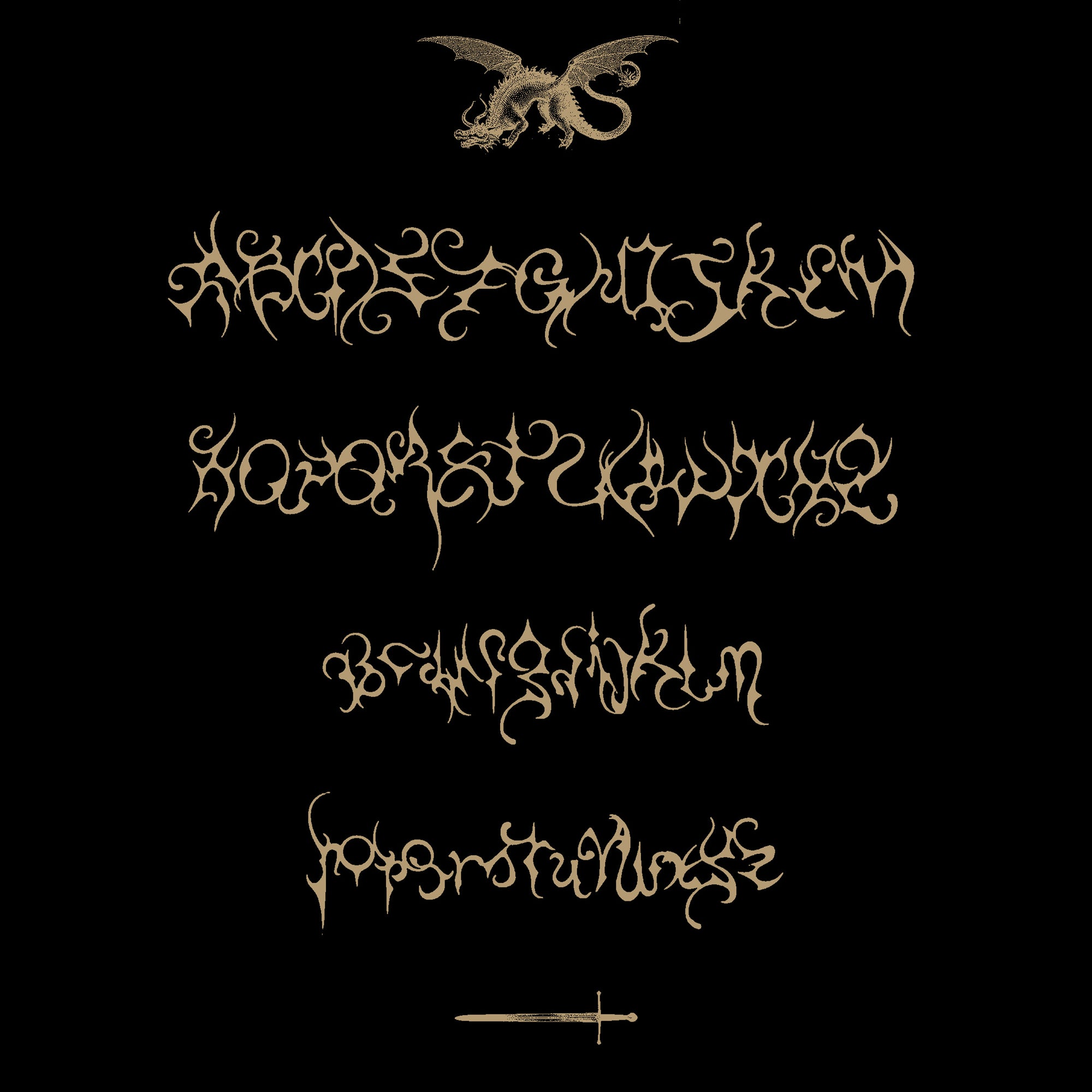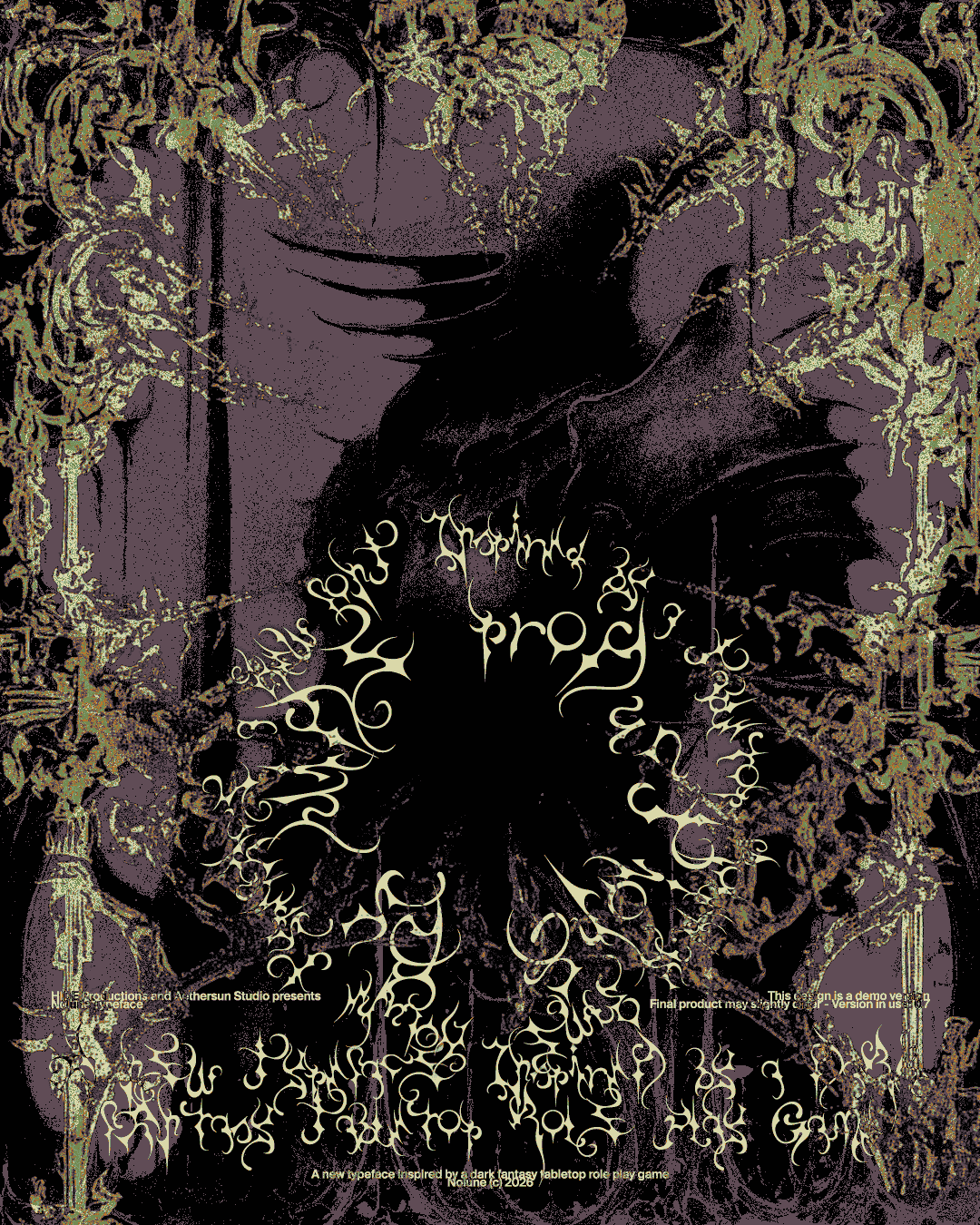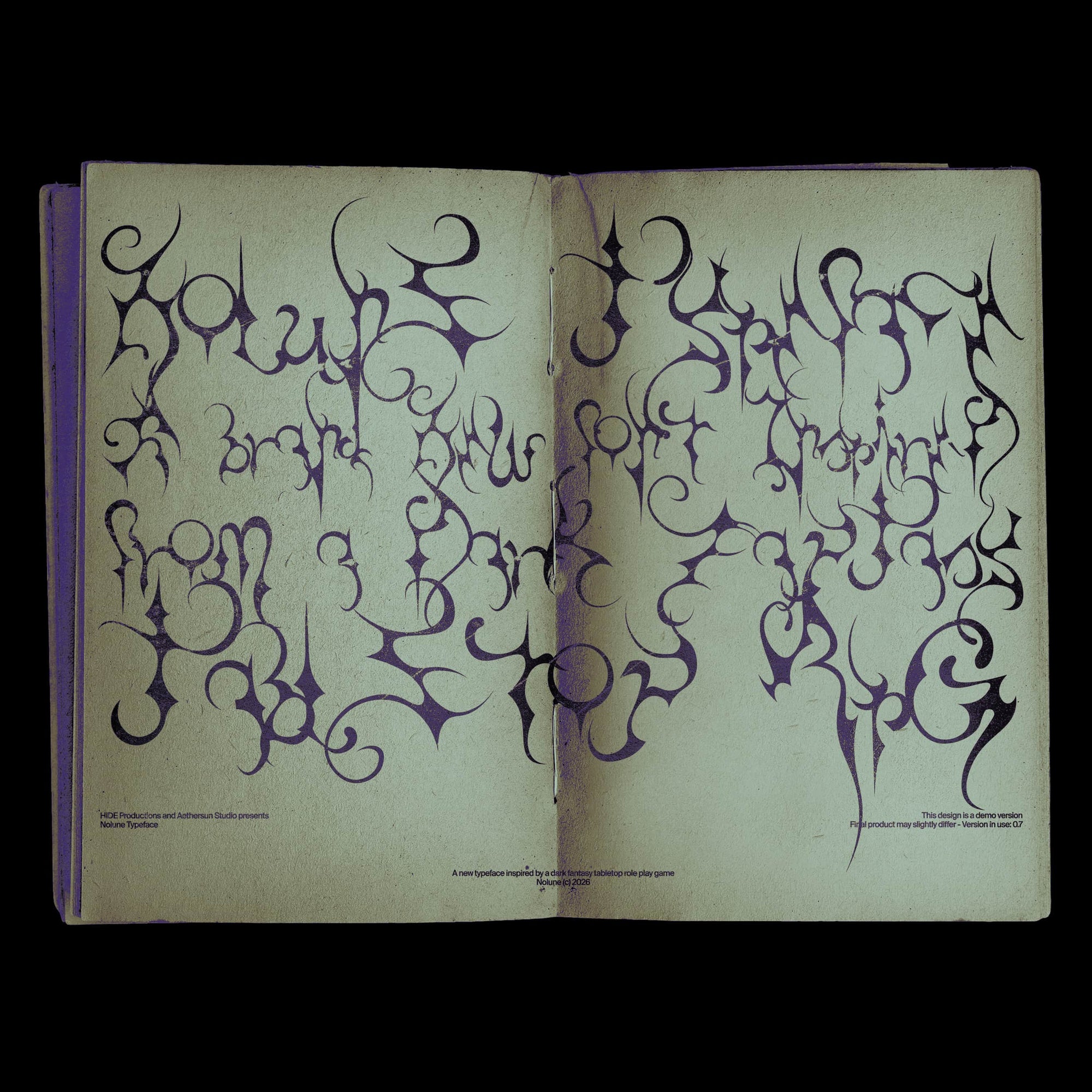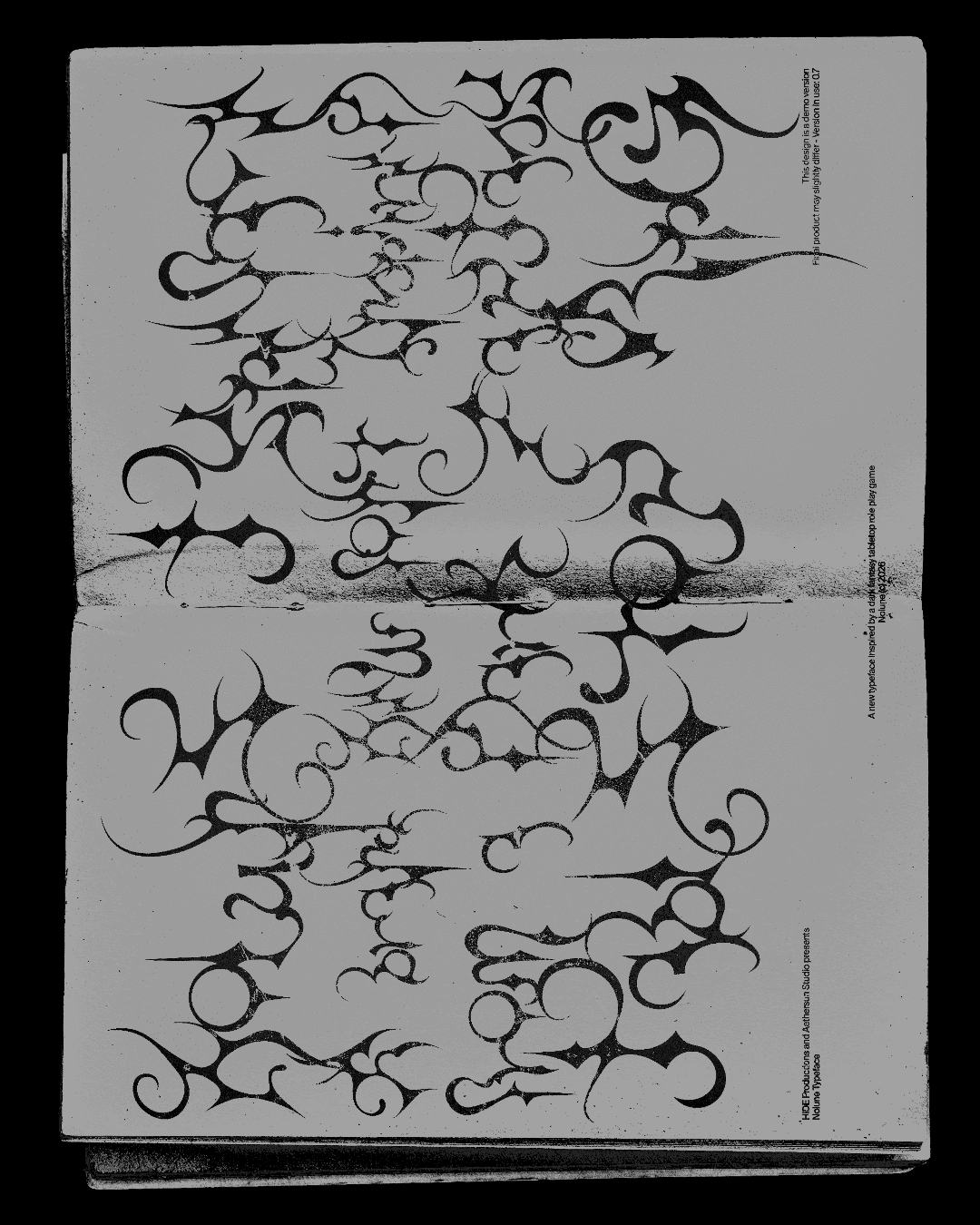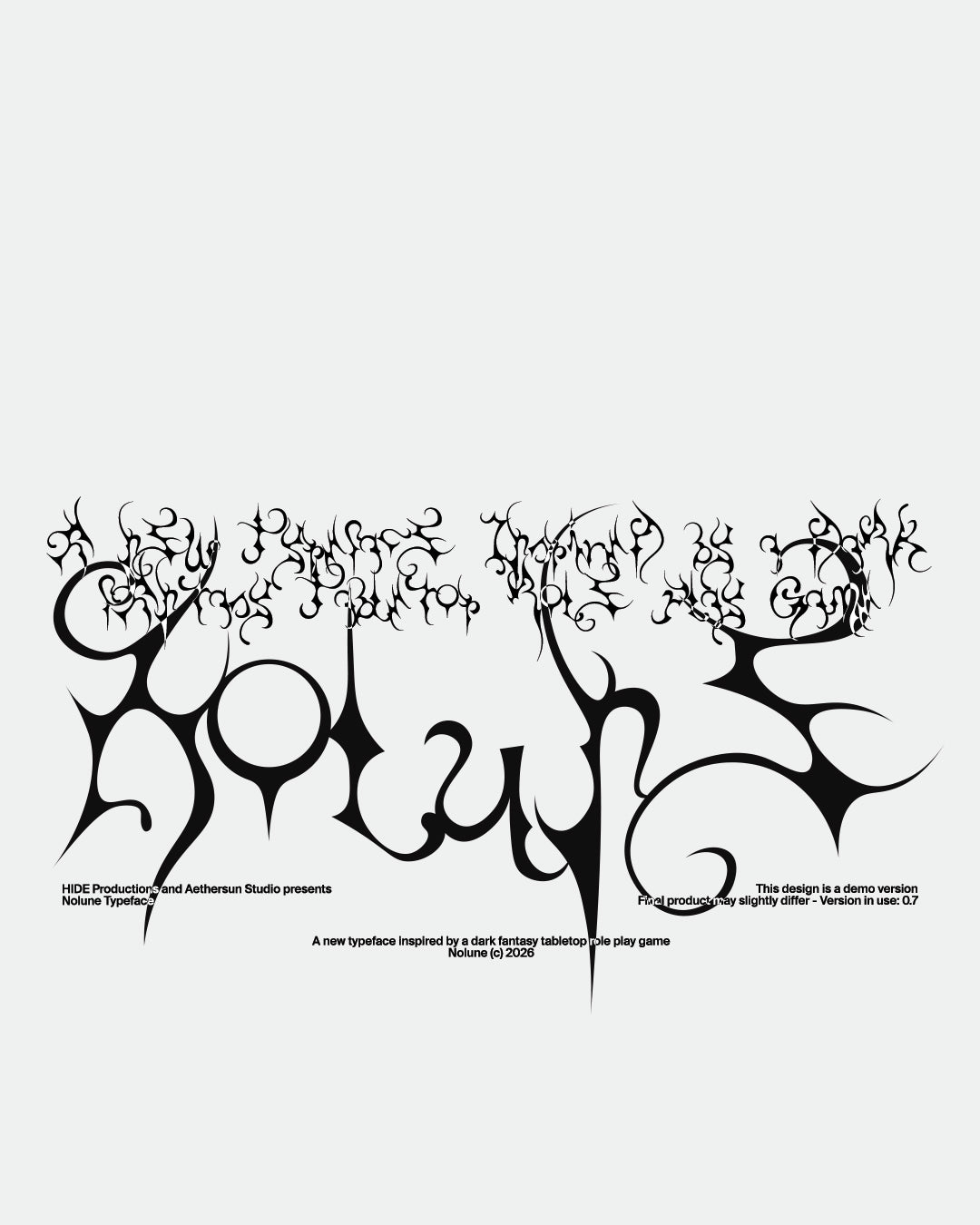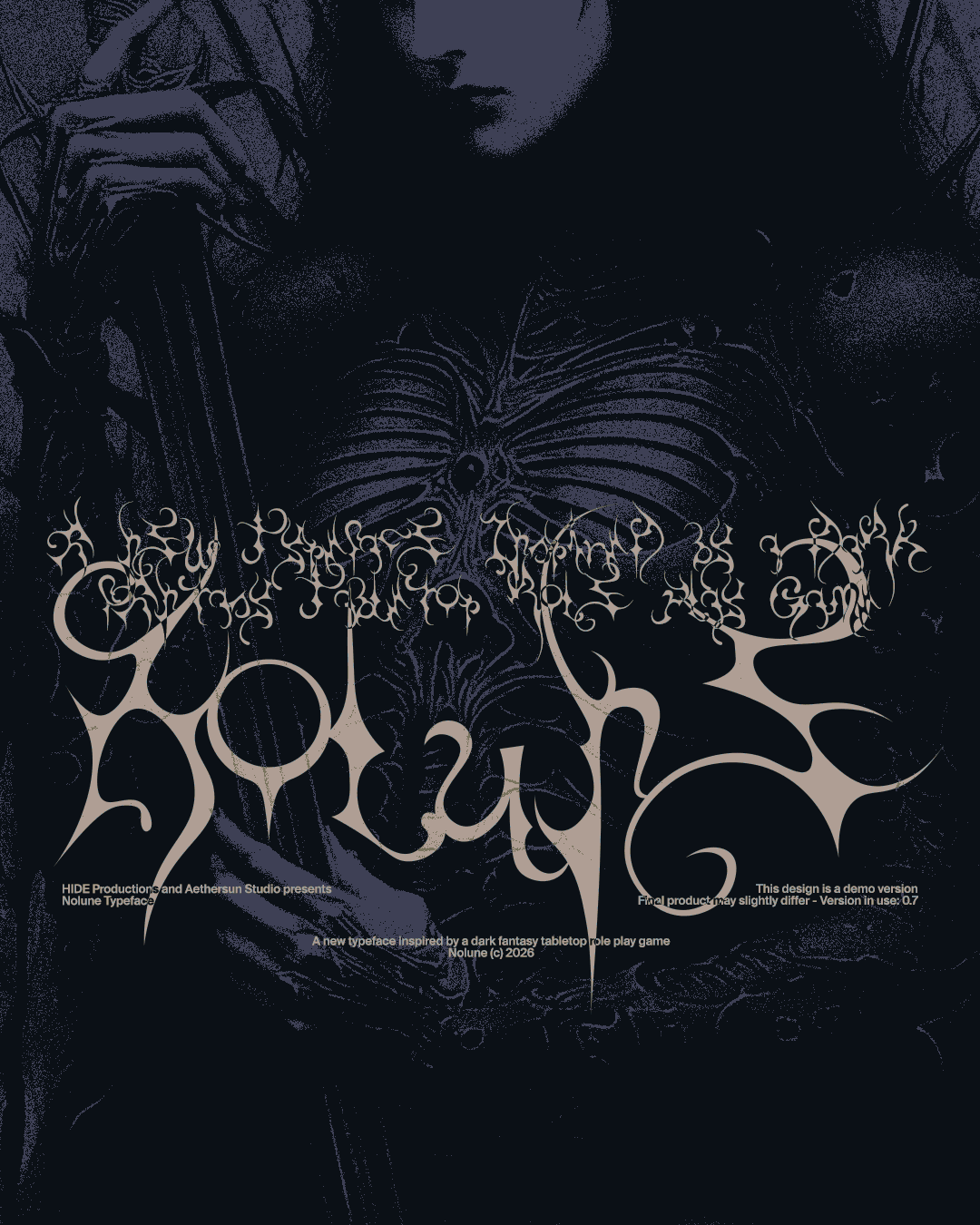
Nolune Typeface
Nolune is a dark fantasy display typeface. Each glyph carries tension between structure and collapse, between invocation and silence. The letterforms grow outward like roots or decay, blending blackletter tradition with something far less stable: organic extensions, hooked terminals, and stroke weights that shift between razor precision and raw erosion.
It is not a typeface built for comfort or clarity. It is built for atmosphere. For titles that should feel like warnings. For layouts that hold weight before a single word is read. The forms are legible at display scale but resist domestication — every character retains something unresolved, something that belongs to the world it came from.
Perfect for game design, album artwork, editorial titles, dark branding, poster design, occult packaging, and any project where typography needs to carry the weight of something unnamed.